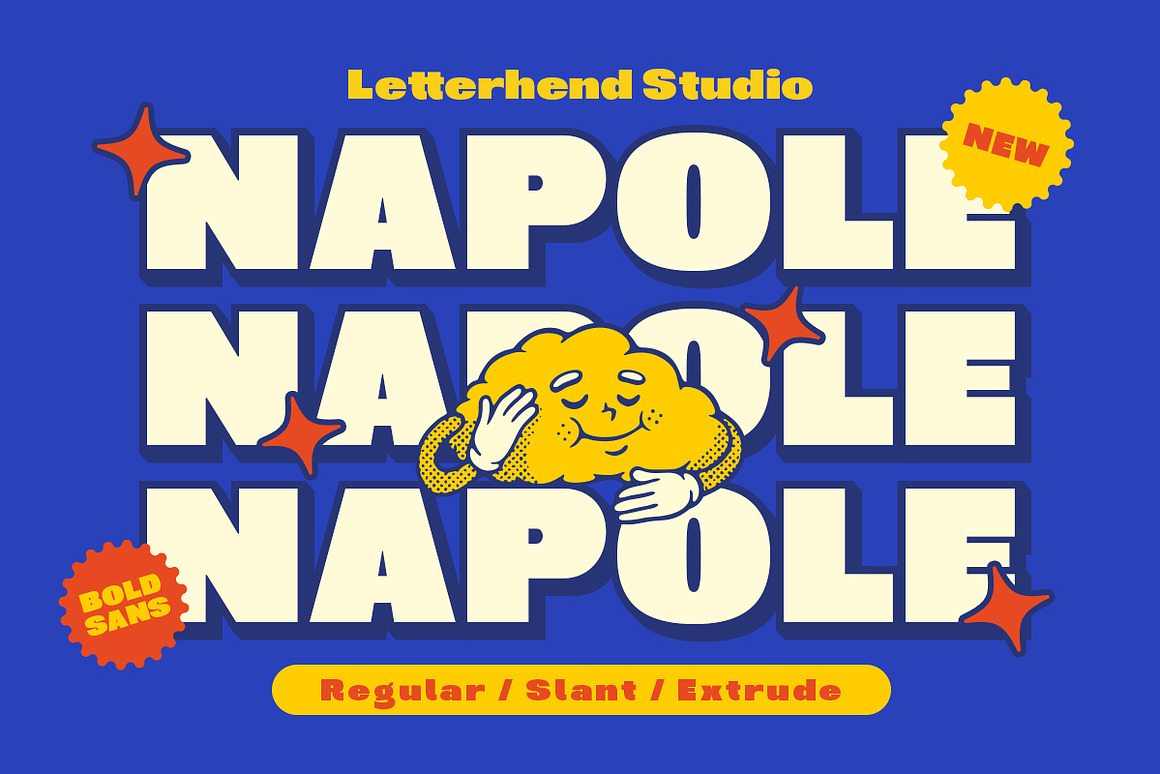
Napole Bold Sans
Napole Bold Sans Free Download is ideal for commanding headlines, powerful brand statements, bold advertising campaigns, impactful poster designs, strong packaging labels, attention-grabbing web banners, dominant logo marks, assertive signage systems, and high-visibility promotional materials. This confident typeface brings decisive strength and unmistakable presence to any bold communication project.
What makes Napole Bold Sans so exciting is its unapologetically powerful design that demands attention and refuses to be ignored with commanding authority and visual dominance. The heavily weighted letterforms feature robust structures and confident proportions that convey determination, leadership, and unshakeable resolve. Its bold personality cuts through visual clutter and creates immediate impact, while the carefully refined construction maintains clarity even at large display sizes, making it perfect for brands that need to make strong statements, establish market dominance, and communicate with the kind of confidence that inspires action and commands respect.
The Napole Bold Sans family typically includes the signature Bold weight along with Medium, ExtraBold, and Black variations for even greater impact options. Some versions offer condensed alternatives for space-efficient applications. This commanding range provides designers with powerful tools to create dramatic visual hierarchies, establish dominant brand presences, and develop high-impact designs that project strength, confidence, and the unwavering conviction that separates leaders from followers in competitive markets.